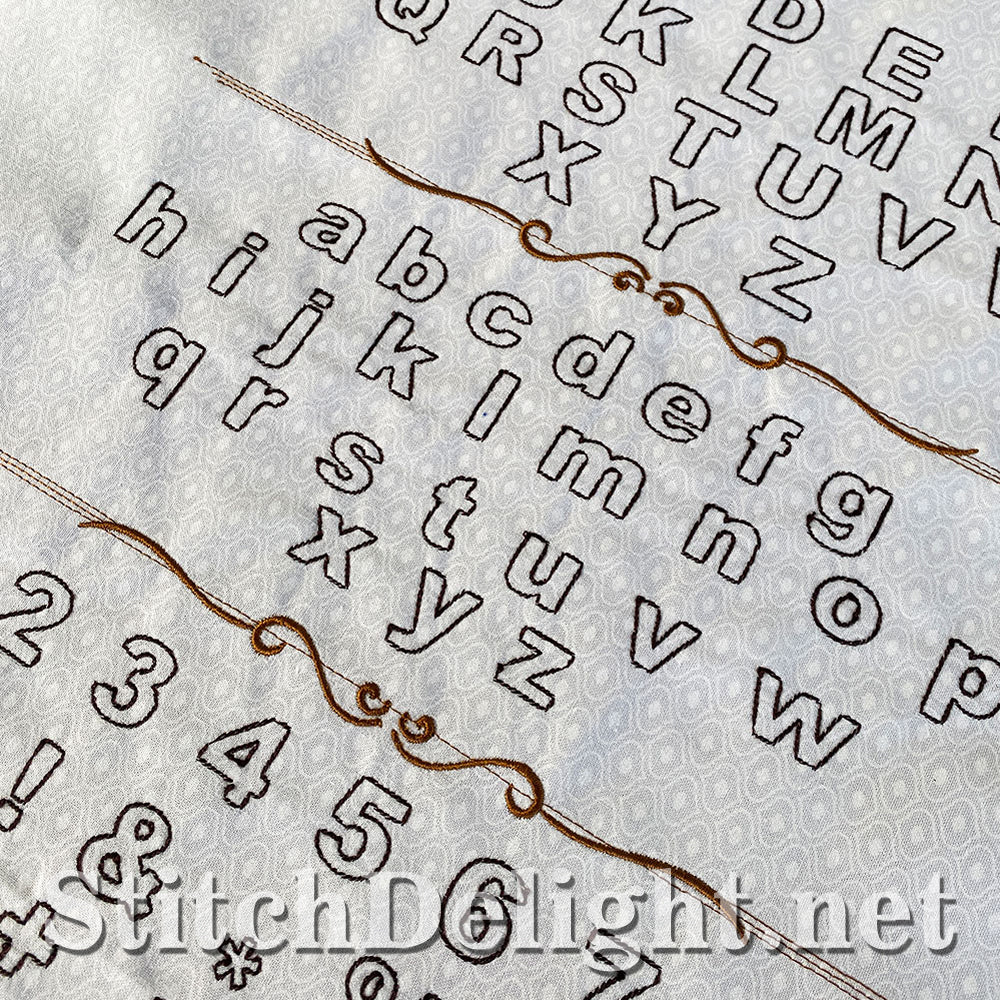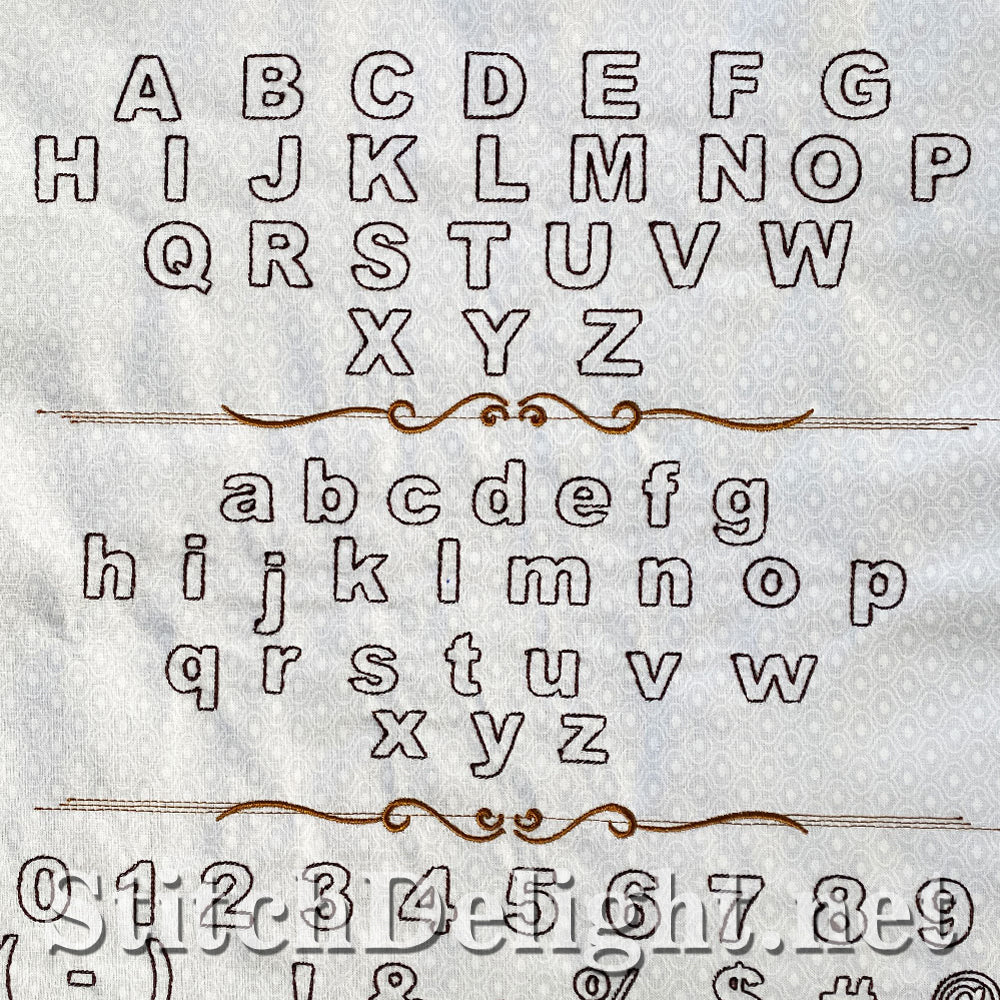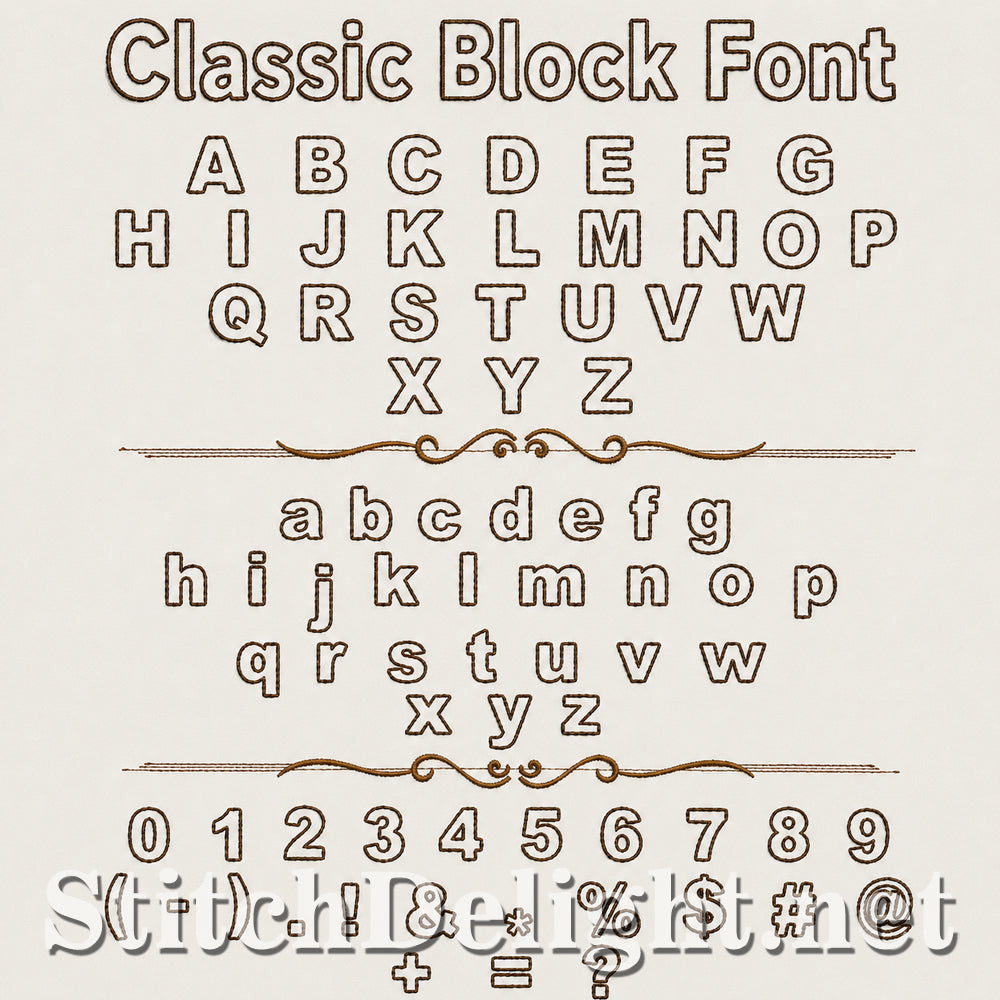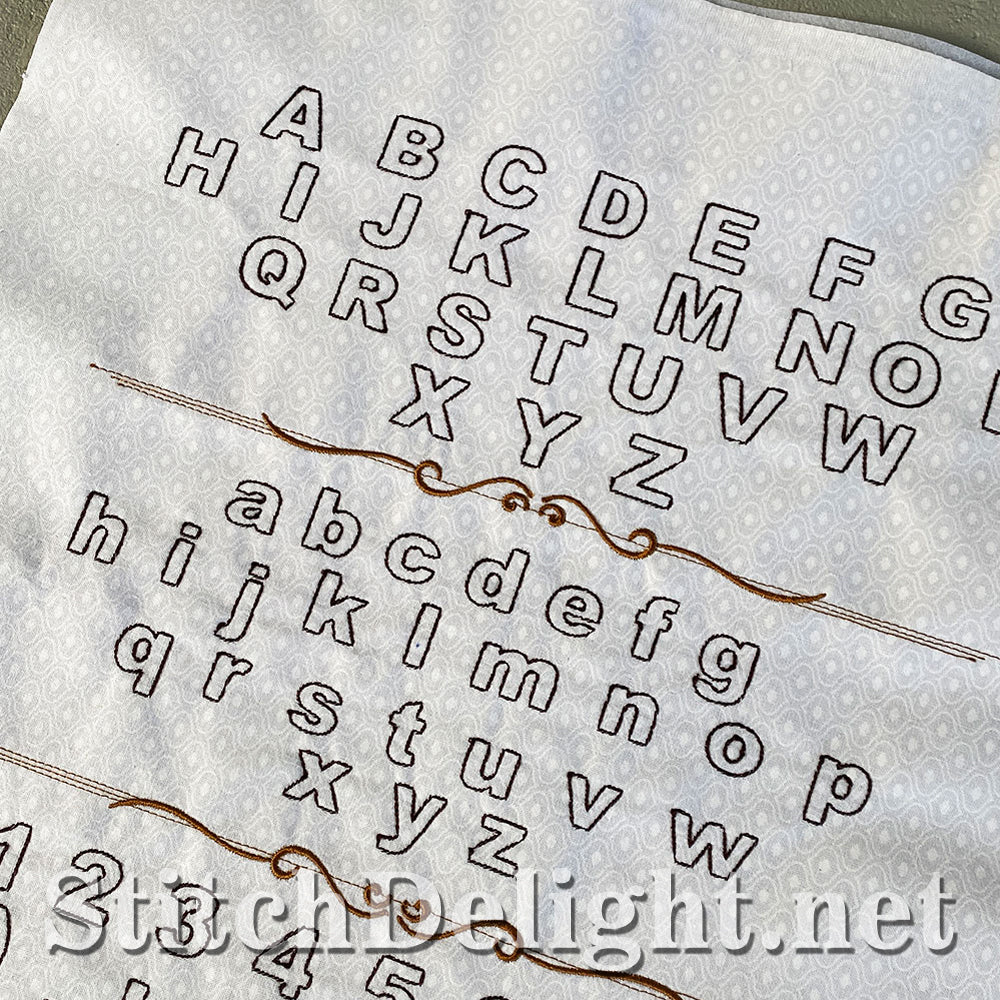
The Classic Block Font is a clean and versatile embroidery font designed to perfectly complement our SDS4778 Ornate Acanthus Monogram Font. Its simple block style provides the ideal balance to the decorative monograms, making it easy to create personalized names, monograms, wedding gifts, home décor projects, and more.
With an average letter height of approximately 1.3", this font is well suited to a wide range of projects including pillows, table runners, towels, tote bags, garments, and personalized gifts.
The set includes:
• Uppercase letters A-Z
• Lowercase letters a-z
• Numbers 0-9
• A selection of commonly used special characters and punctuation
Pair this font with the Ornate Acanthus Monogram Font to create elegant names, initials, quotes, and personalized projects with a beautifully coordinated look.
Whether you're stitching a single monogram or creating a complete custom design, the Classic Block Font is a timeless addition to your embroidery collection.